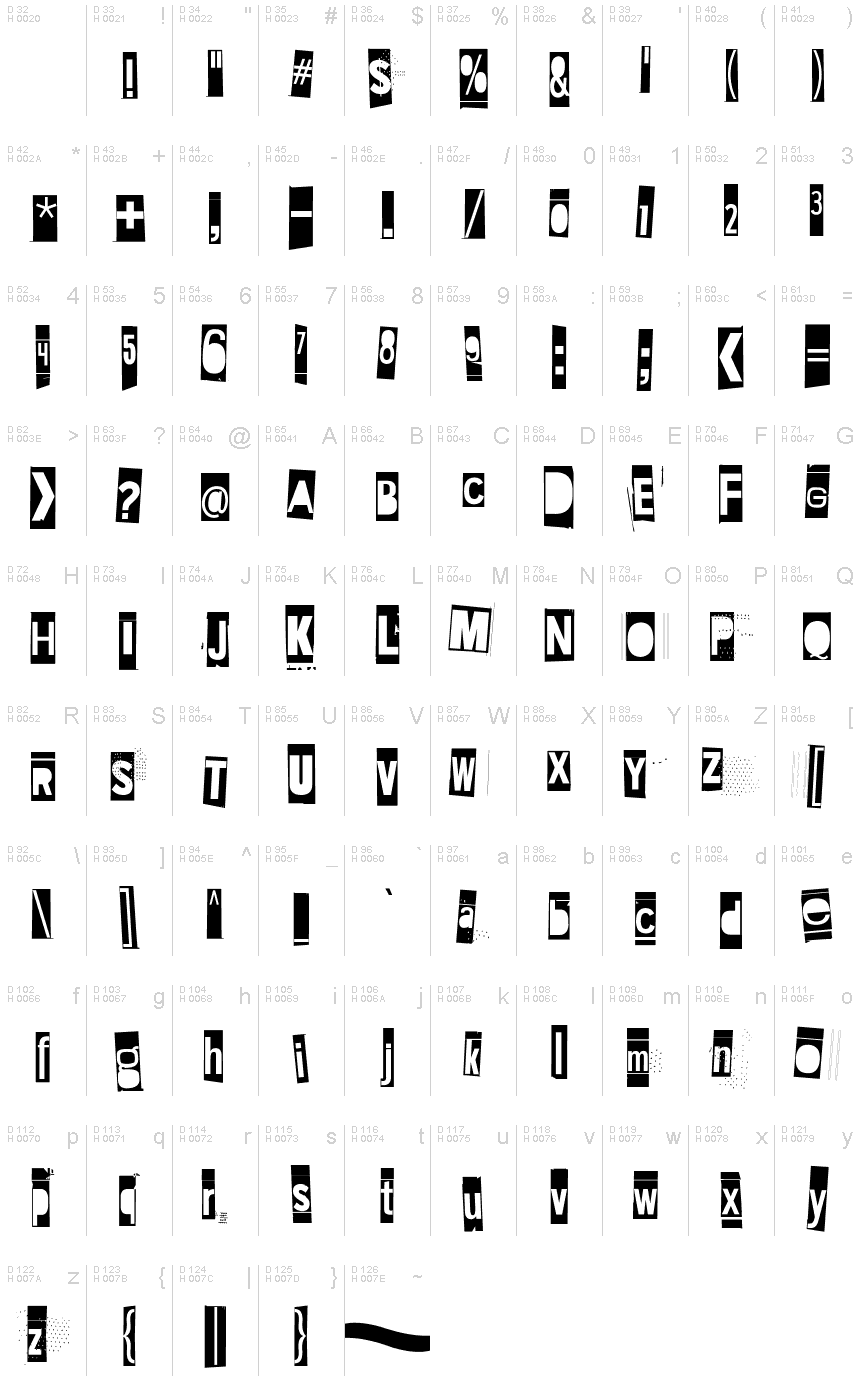
Extraoin Zhurdlyou Missing
Extraoin Zhurdlyou Missing, the eccentric negative display font designed by junkohanhero, is the perfect choice for creating a bold and edgy look in your designs. With its distorted style and semi-light weight, this font adds a unique touch to any project including album covers, posters, and advertisements. Its narrow width also makes it suitable for use in headlines or captions. Use Extraoin Zhurdlyou Missing to bring a sense of creativity and rebellion to your designs that is sure to grab attention.